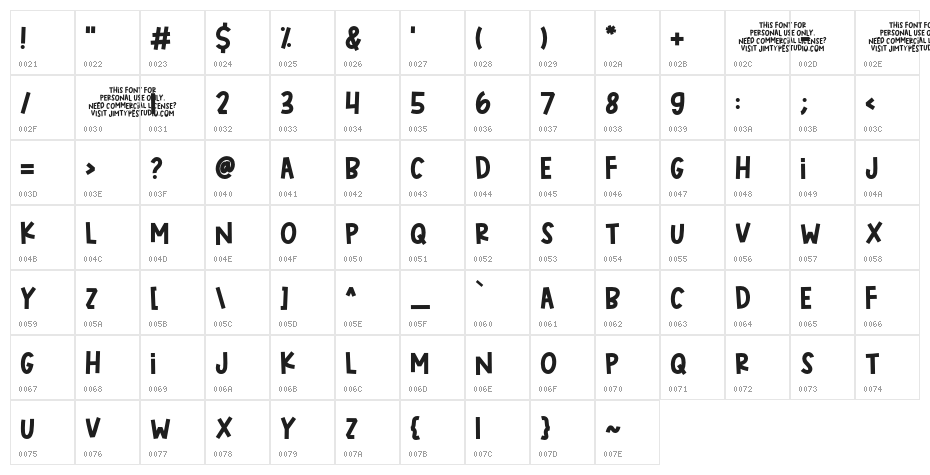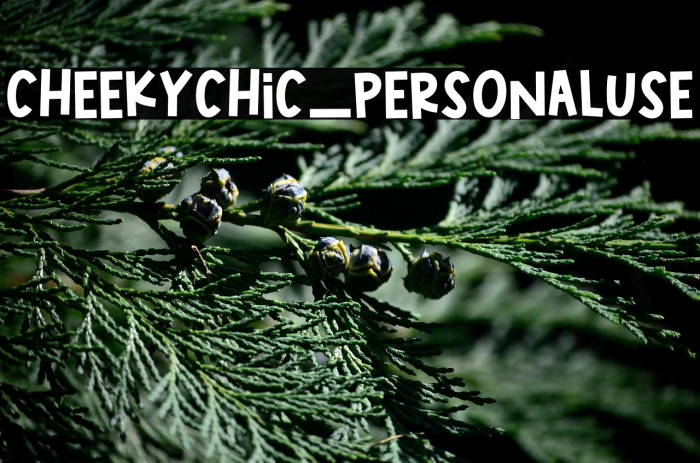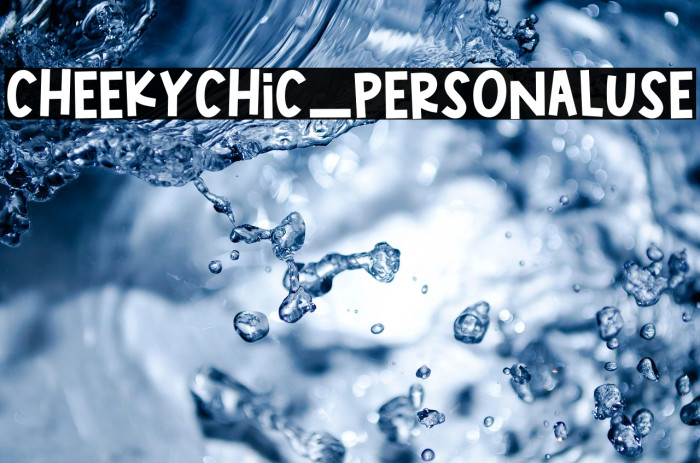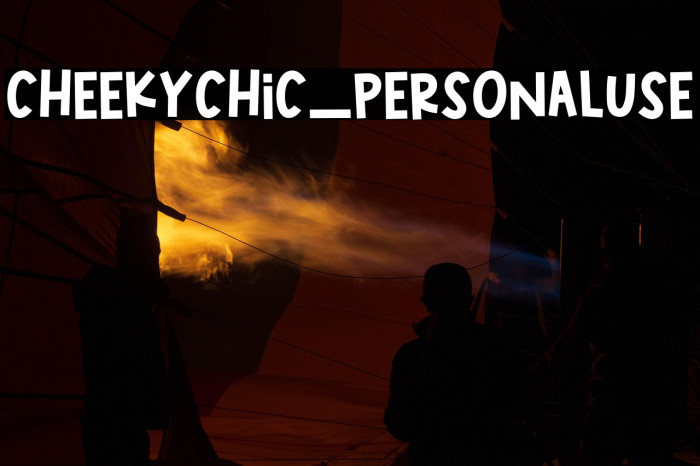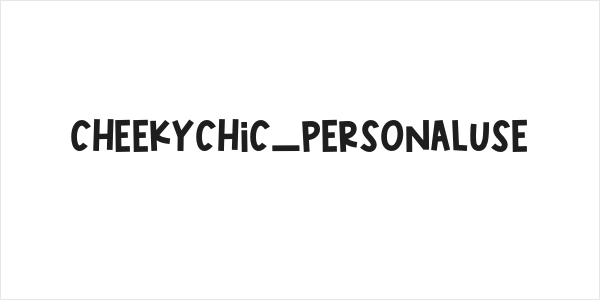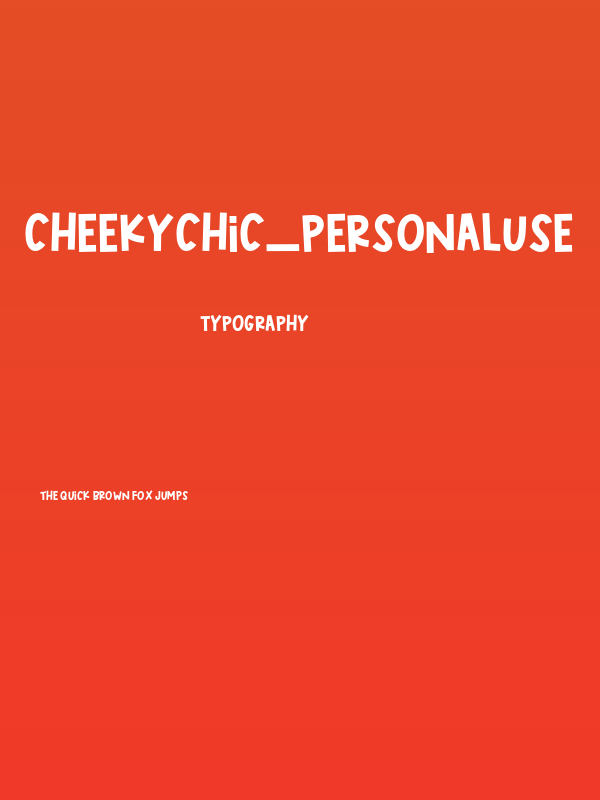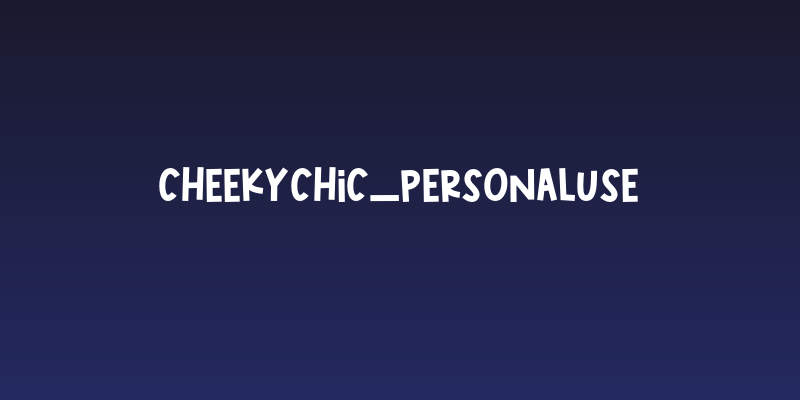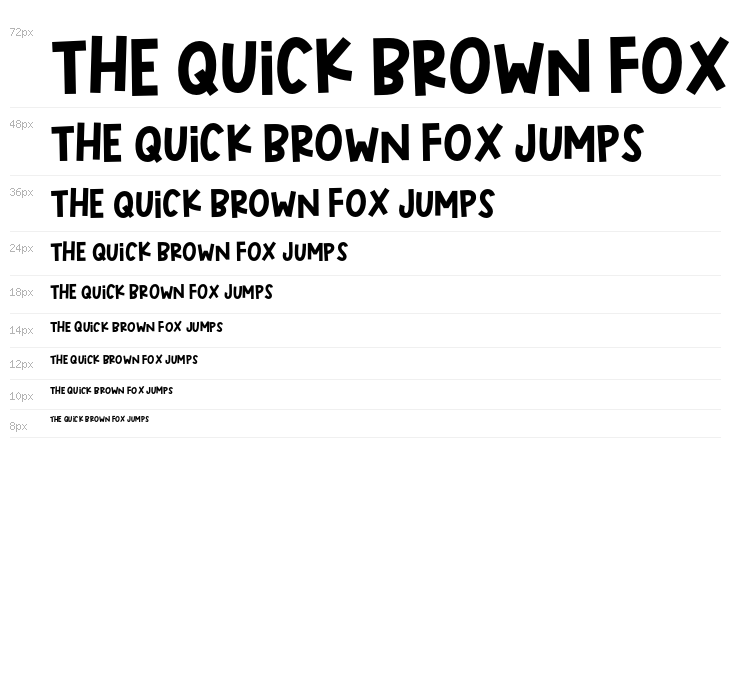
CheekyChic_PERSONALUSE Font
CheekyChic_PERSONALUSE Description
This playful and bold font features a hand-drawn aesthetic with a quirky, informal style. The characters are slightly irregular, adding a sense of whimsy and creativity. The uppercase and lowercase letters maintain a consistent style, with rounded edges and a friendly appearance. The numbers and special characters follow the same playful design, making the font versatile for various uses. Its bold strokes and unique character shapes make it stand out, perfect for projects that require a fun and engaging look.
| Overall Style | Playful, Creative |
| Proposed Projects | Ideal for children's books, playful branding, greeting cards, and creative posters. |